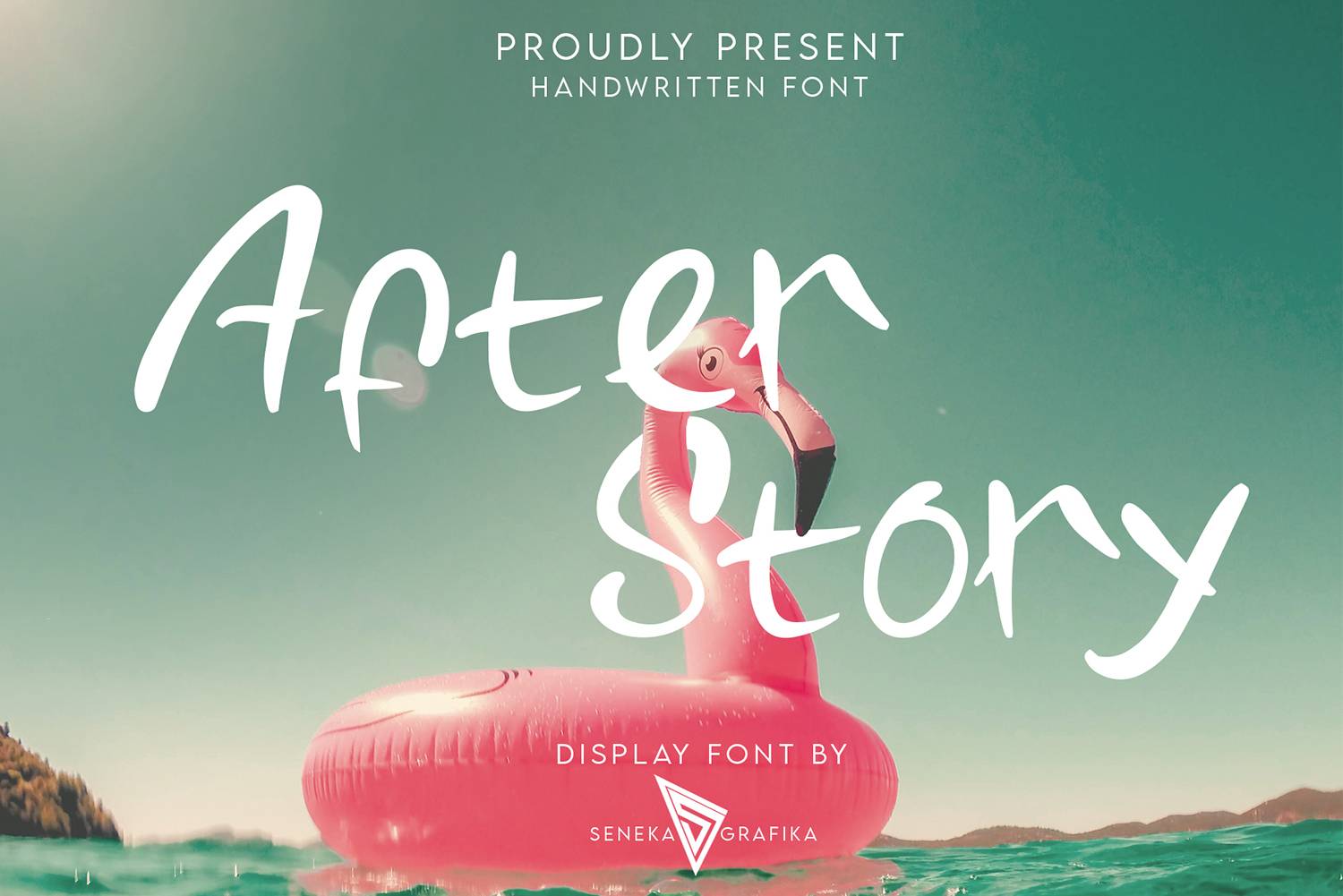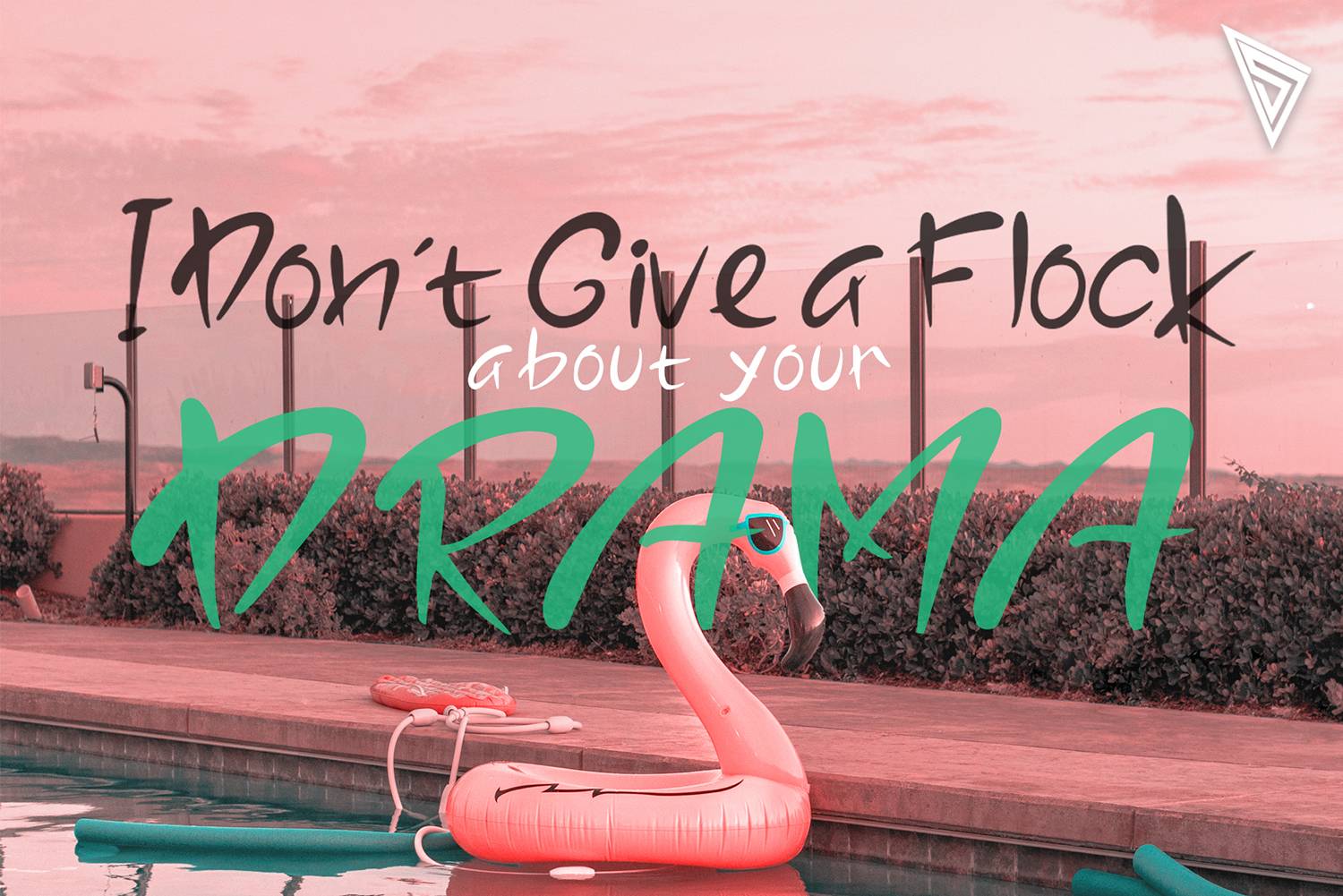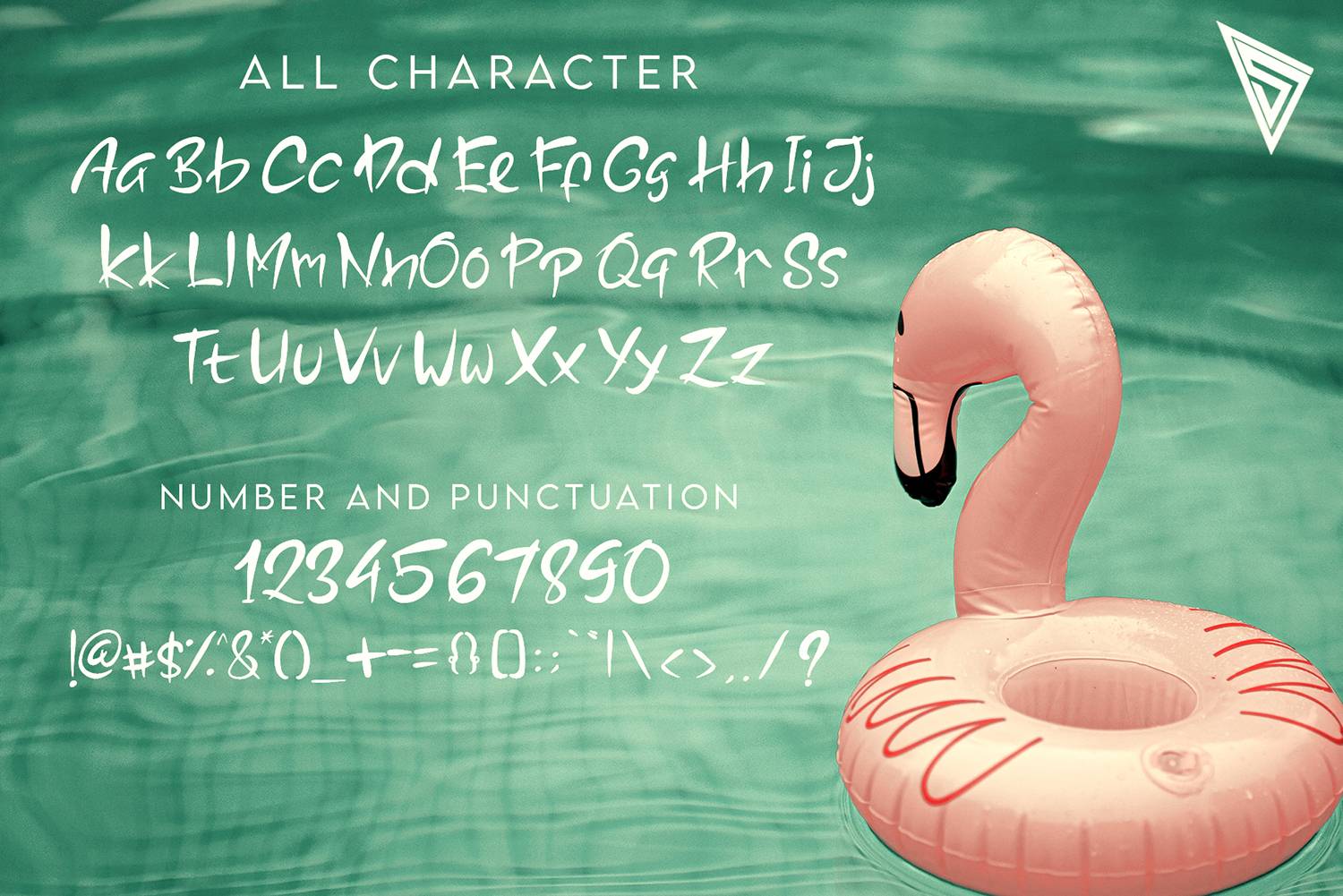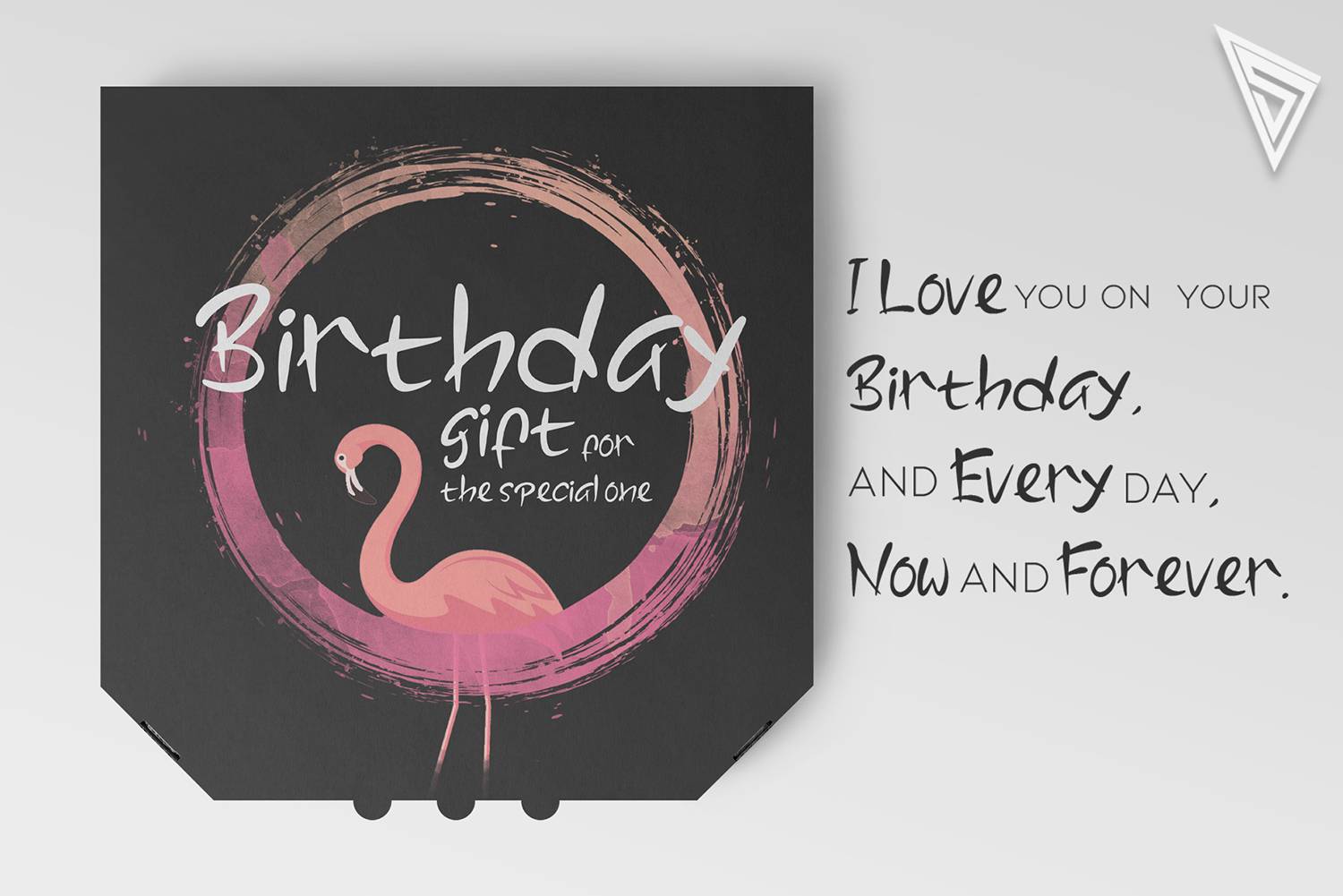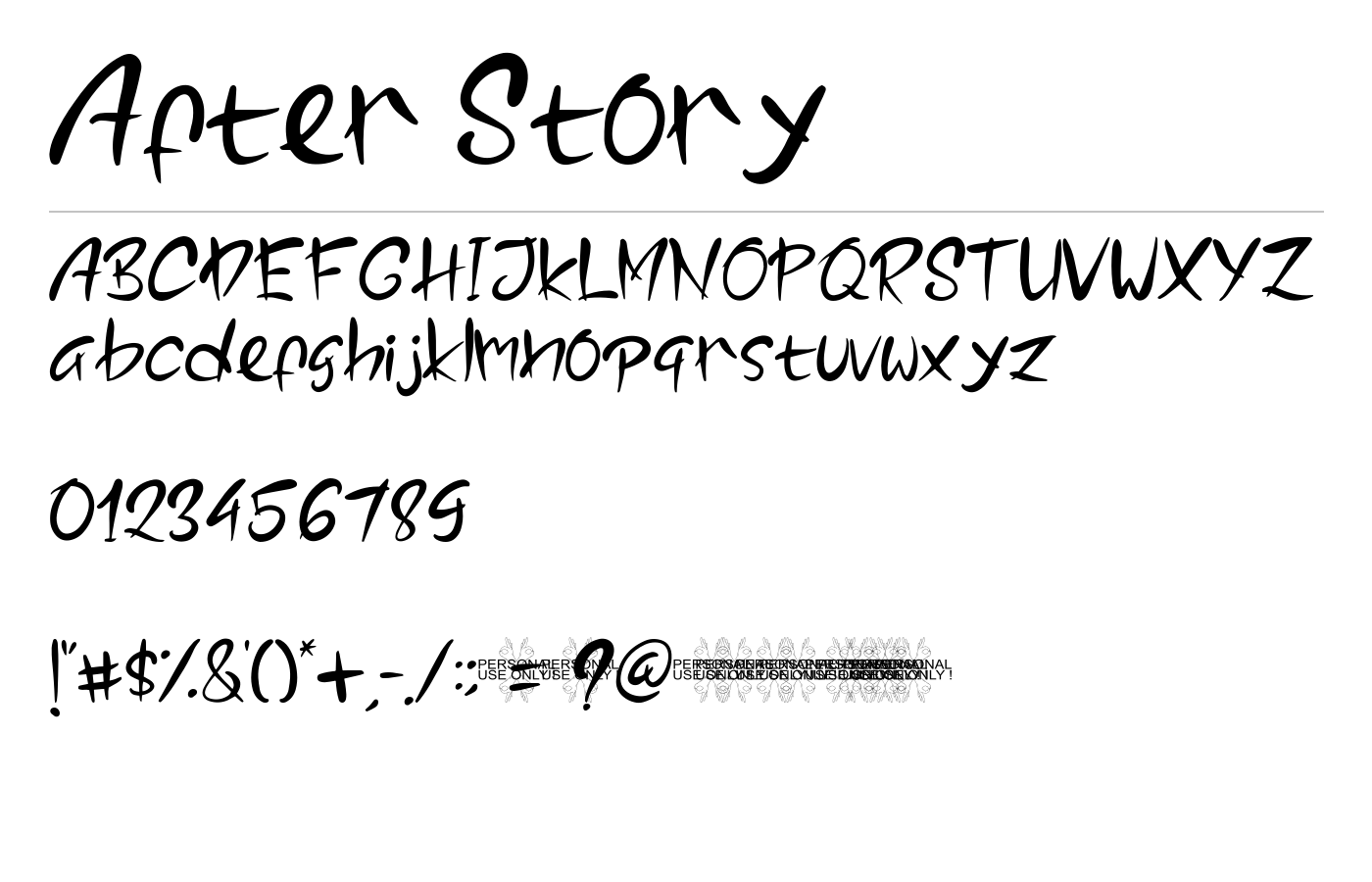
After Story is a playful and casual handwritten font that captures a natural, brush-like flow with moderate contrast and lively letterforms. Its upright, informal style and slightly condensed width make it ideal for projects seeking a personal, creative touch, such as invitations, posters, and branding that embraces warmth and approachability. This font shines where friendly, expressive communication is key, adding an authentic, handcrafted feel.
After Story Font